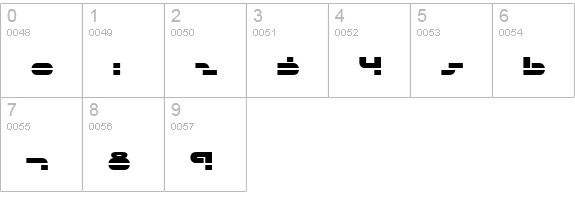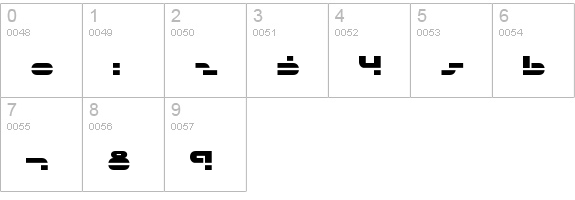
uni-sol laser Font Details
Uni-Sol Laser Font is a mesmerizing and futuristic typeface that is sure to captivate and elevate any design project. This cutting-edge font boasts sleek lines and sharp angles, giving it a distinct and contemporary aesthetic. Its laser-inspired design evokes a sense of technology, innovation, and precision. With its bold and striking appearance, Uni-Sol Laser Font is perfect for a wide range of creative applications. Whether you're designing a logo, crafting eye-catching headlines, or creating stunning graphics, this font will add a touch of modernity and sophistication to your work. What sets Uni-Sol Laser Font apart is not only its exceptional design but also its availability. This font is freely available to download at FontsMarket.com, making it accessible to designers, artists, and enthusiasts alike. With just a few clicks, you can bring this extraordinary font into your creative arsenal, unleashing its full potential in your projects. With Uni-Sol Laser Font, you have the freedom to explore and experiment, pushing the boundaries of design. Its versatility allows it to seamlessly integrate into various styles and themes, from science fiction to corporate branding. The possibilities are endless, limited only by your imagination. So, why settle for ordinary fonts when you can harness the power of Uni-Sol Laser Font? Download it for free at FontsMarket.com and embark on a journey of creative exploration. Elevate your designs, captivate your audience, and leave a lasting impression with this exceptional font.